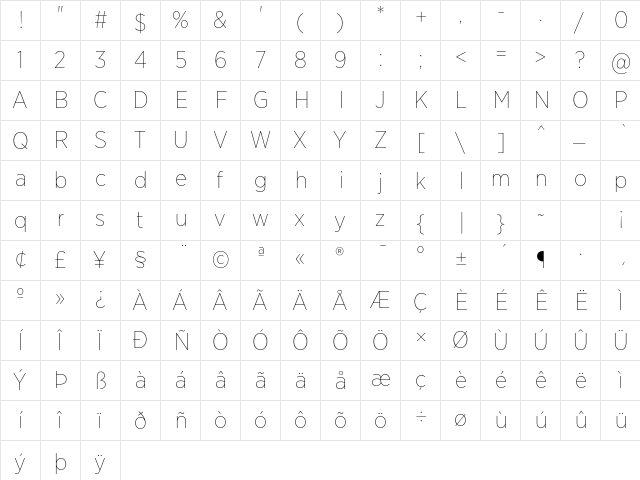
Gotham Narrow Thin
| Foundry | Hoefler & Frere-Jones |
| Designer | Hoefler & Frere-Jones |
Design Context for Gotham Narrow Typeface
Gotham Narrow offers clean, dependable letterforms without strong stylistic allegiance, making it a practical choice for designers who need flexibility. Its slender proportions lend an understated elegance to any composition. Its narrow stance lets it pack a punch even in space-constrained designs.